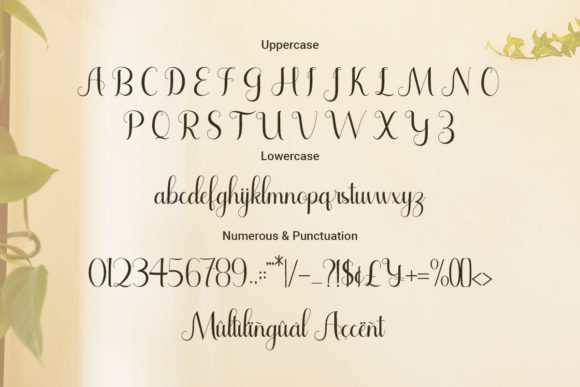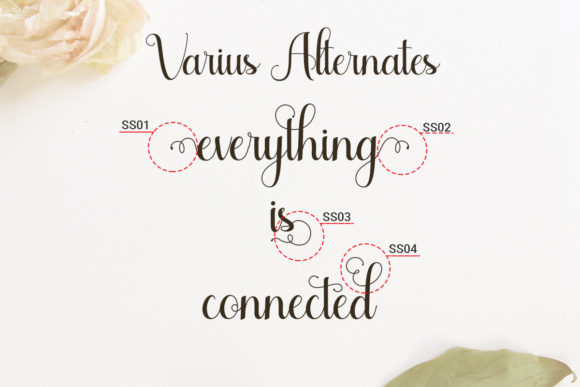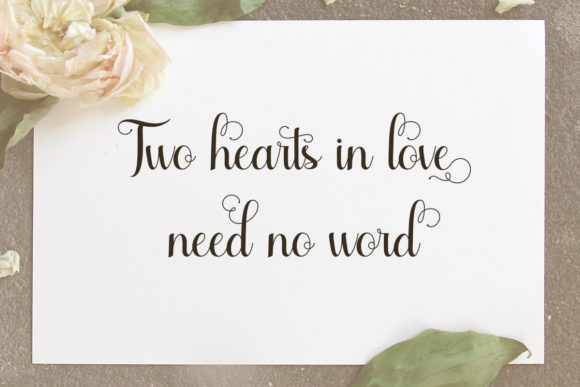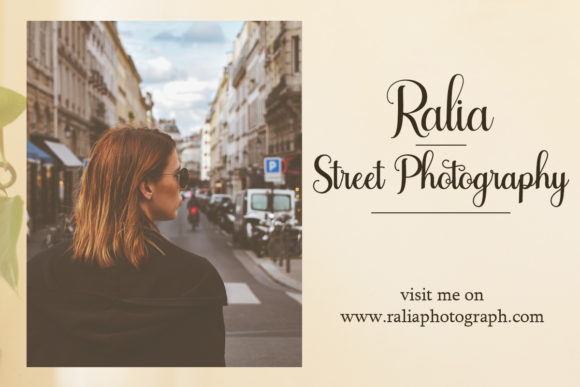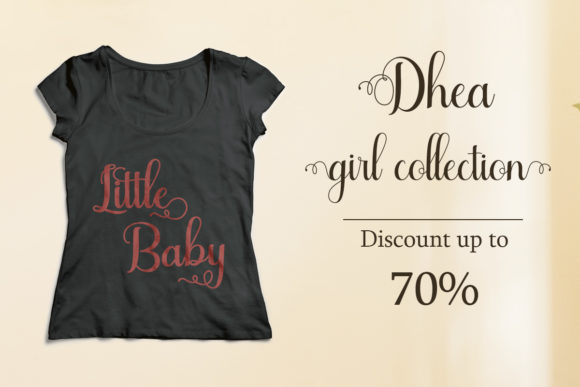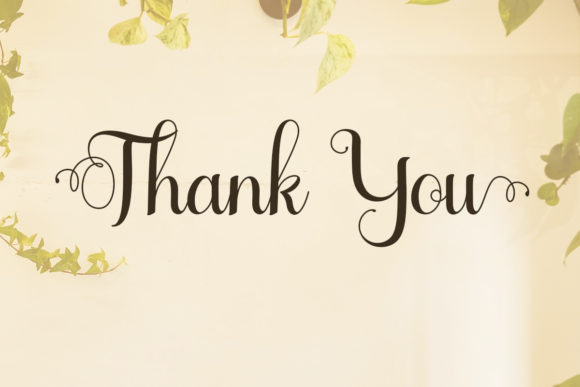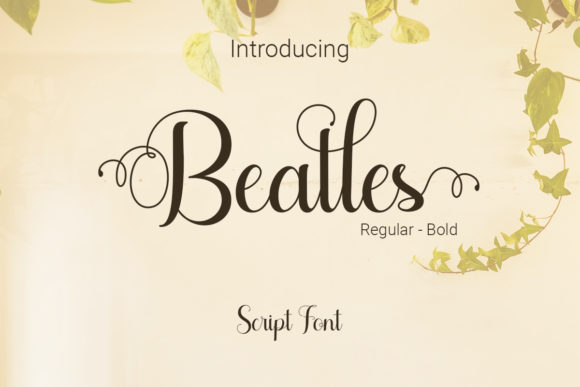
Introducing the Beautiful Beatles Font: Elevate Your Designs with Elegance
The Beatles Font is a stunning, elegant, and natural handwritten font that has captured the hearts of designers and crafters alike. Its versatility and aesthetic appeal make it an ideal choice for a wide range of design projects, from wedding invitations and thank you cards to quotes, greeting cards, logos, and business cards. In this article, we’ll dive into the features and benefits of the Beatles Font, exploring how it can add a touch of sophistication and whimsy to your designs.
A Font that Exudes Elegance and Sophistication
The Beatles Font boasts a unique, handwritten style that exudes elegance and sophistication. Its flowing lines, delicate curves, and natural flair make it perfect for designs that require a personal touch. Whether you’re creating wedding invitations, greeting cards, or quotes, this font adds a level of refinement and luxury that will leave a lasting impression on your audience.
One of the standout features of the Beatles Font is its versatility. It can be used for a wide range of design projects, including:
- Quotes and typographic art
This font’s adaptability makes it an excellent addition to any designer’s toolkit, allowing you to experiment with different styles and applications.
The Beatles Font is PUA (Private Use Area) encoded, which means that you can access all the glyphs and swashes with ease. PUA encoding allows you to unlock the full potential of the font, giving you access to a wide range of characters, ligatures, and swashes that can enhance your designs. This feature makes it easy to customize your text and add a personal touch to your projects.
The Beatles Font offers numerous benefits for designers and crafters, including:
- High-quality design: The font is designed to high standards, ensuring that your projects look professional and polished.
- Customization options: The PUA encoding allows for easy access to glyphs and swashes, giving you the freedom to experiment with different styles.
- Time-saving: The font’s versatility and range of features save you time and effort, allowing you to focus on the creative aspects of your project.
Tips for Using the Beatles Font
To get the most out of the Beatles Font, here are some tips to keep in mind:
- Experiment with different sizes: The font looks great in a range of sizes, from small and delicate to large and bold.
- Play with swashes and glyphs: Use the PUA encoding to access the font’s range of swashes and glyphs, adding a personal touch to your designs.
- Pair with complementary fonts: Combine the Beatles Font with other fonts to create a unique and visually appealing design.
- Use for display text: The font’s elegant and cursive style makes it perfect for display text, such as headings and titles.